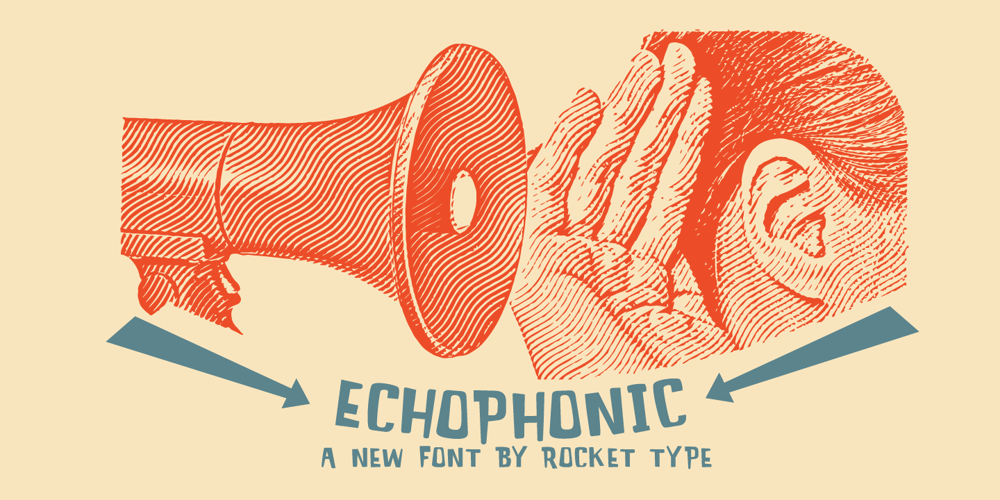
Echophonic Font Family was designed by David Cohen, Dathan Boardman and published by Rocket Type. Echophonic contains 1 styles and family package options. Try new Echophonic today! It’s hi-fidelity sound you can actually see! Another miracle of modern science in several weights by Rocket Type.